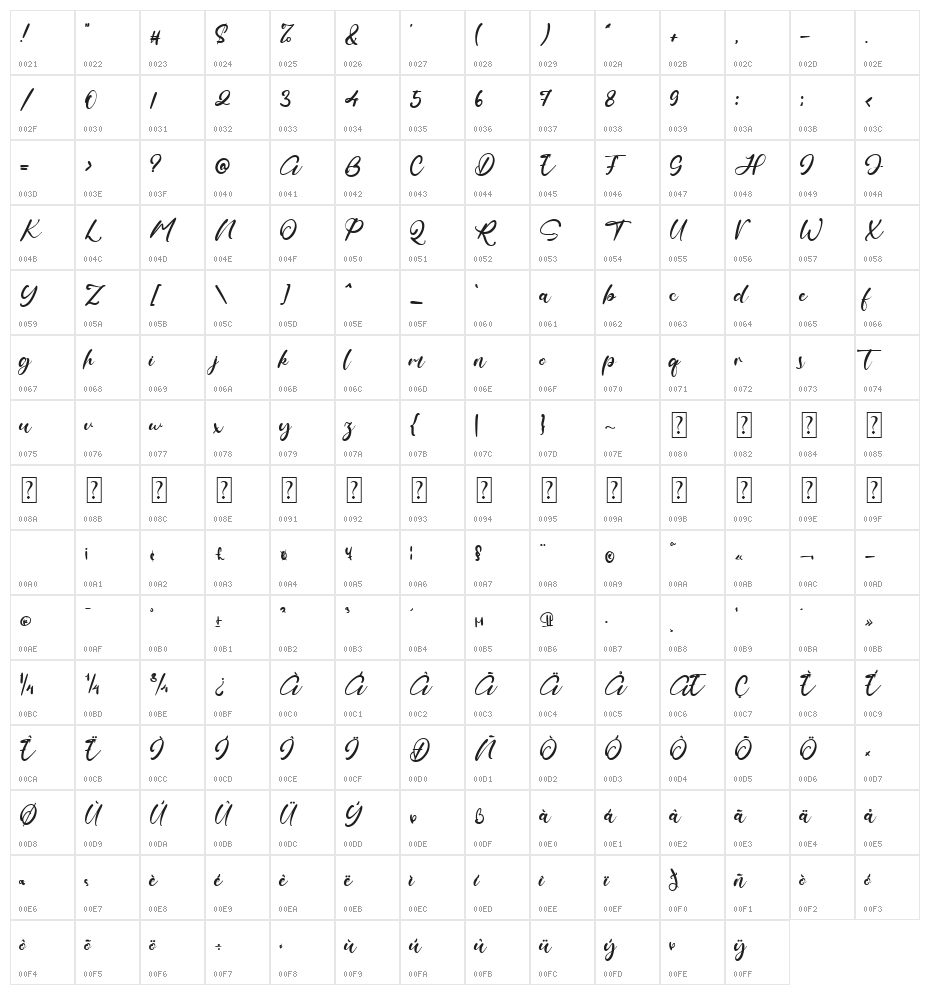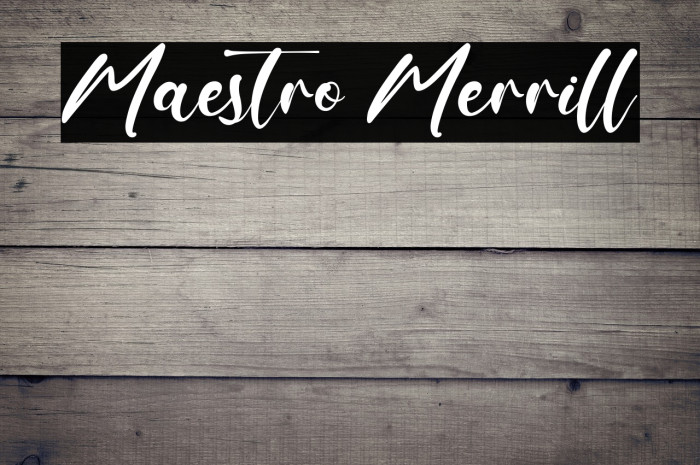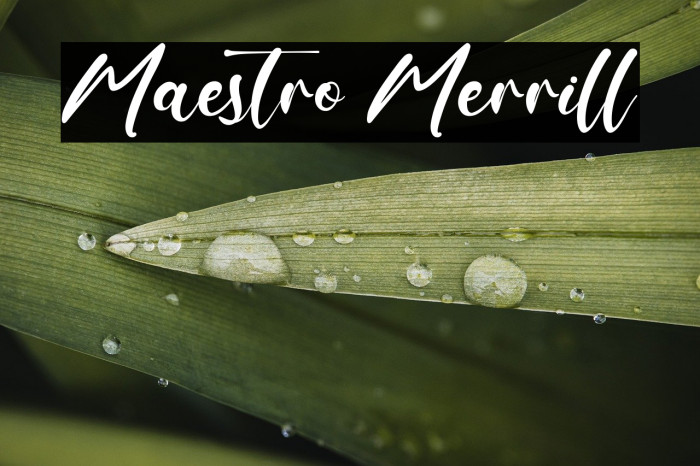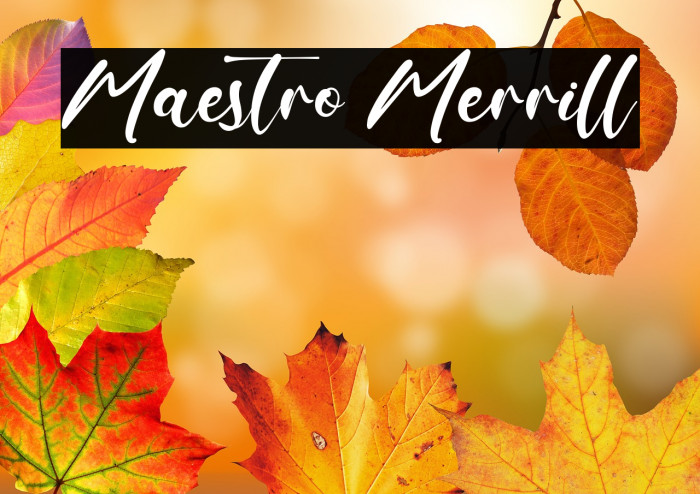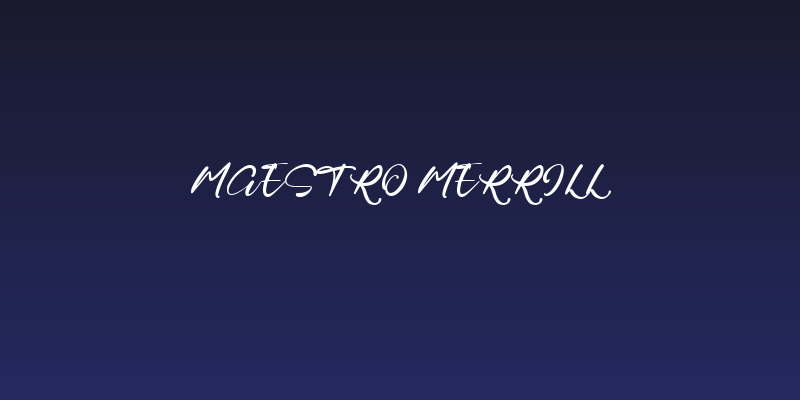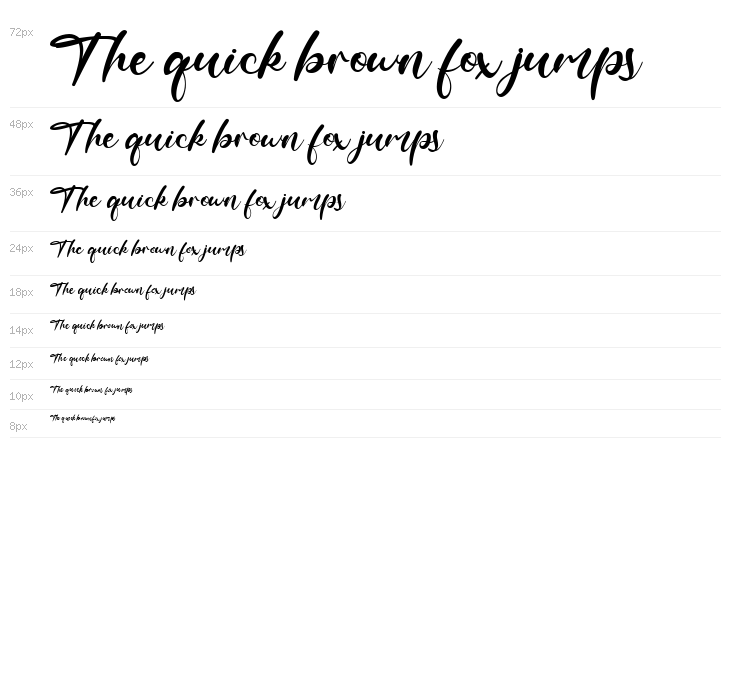
Maestro Merrill Font
Maestro Merrill Description
This elegant script font exudes a sense of sophistication and fluidity, characterized by its smooth, flowing lines and graceful curves. The uppercase letters are bold and prominent, while the lowercase letters maintain a delicate balance with their slightly narrower strokes. The numerals are consistent with the overall style, offering a harmonious blend with the alphabet. Special characters are thoughtfully designed, maintaining the font's cohesive aesthetic. This font is perfect for projects that require a touch of elegance and refinement.